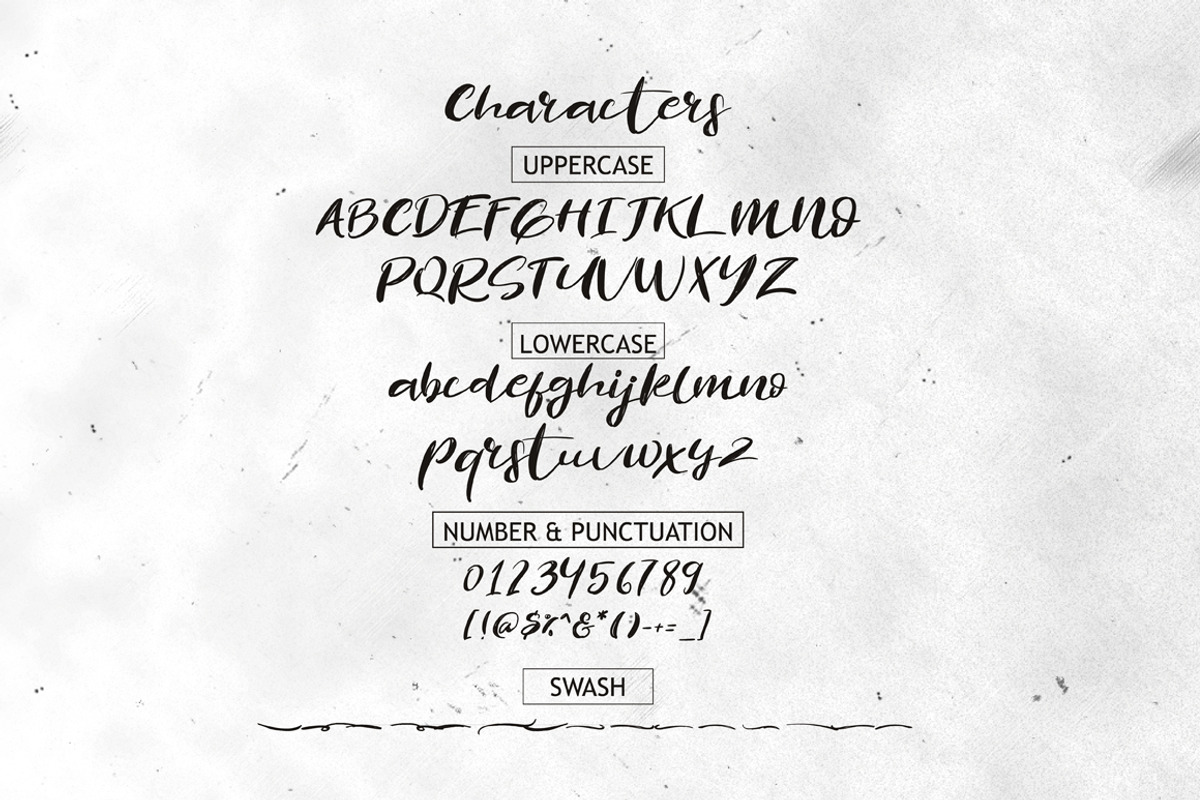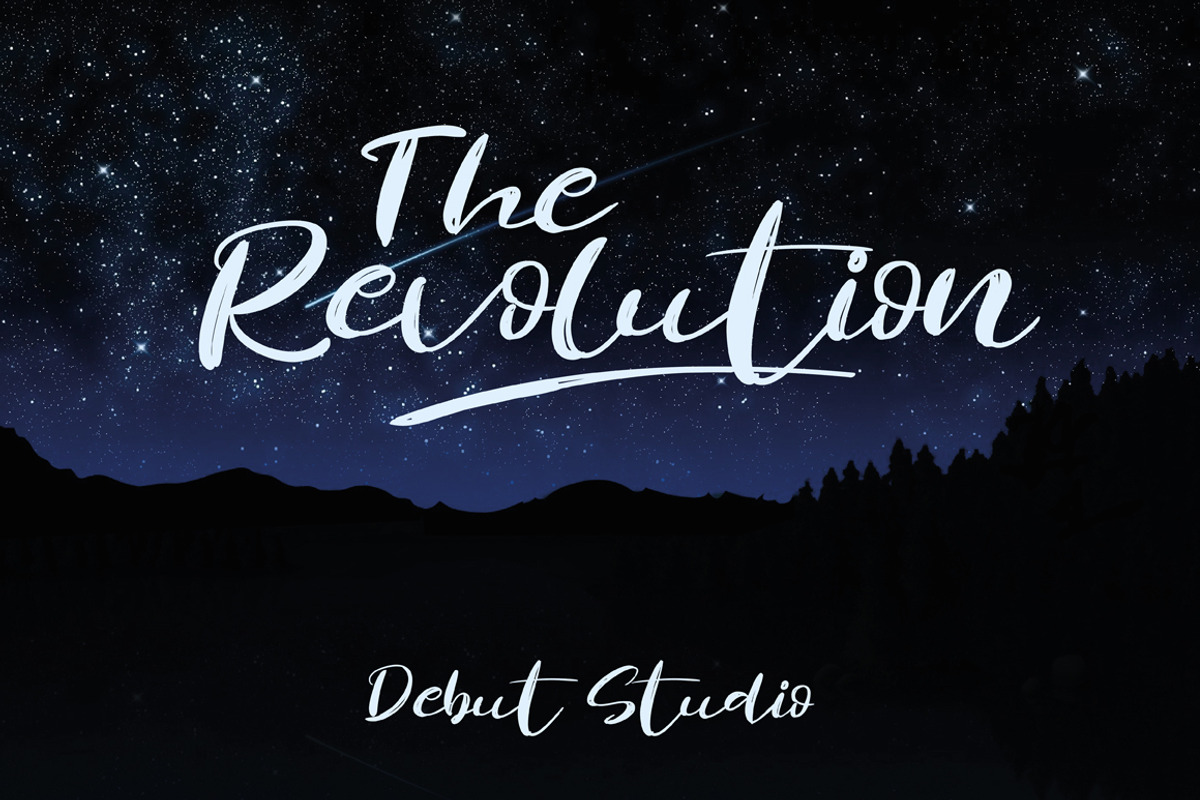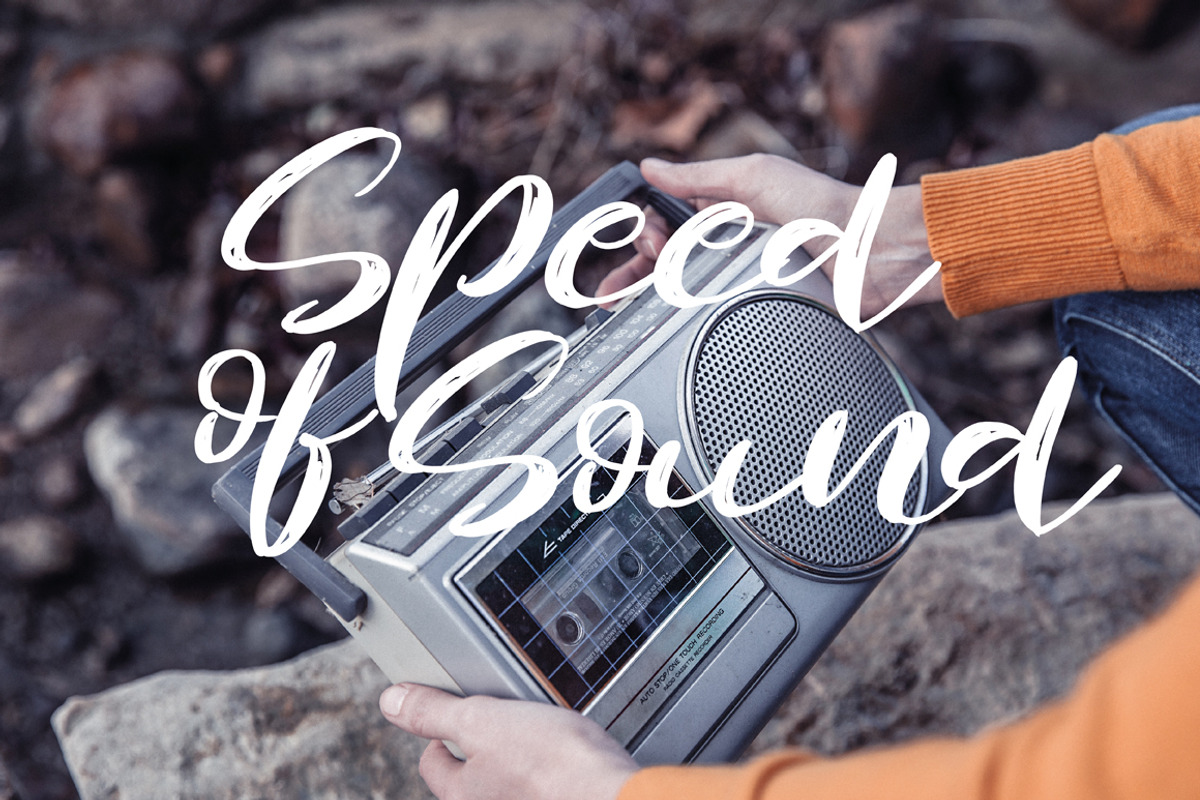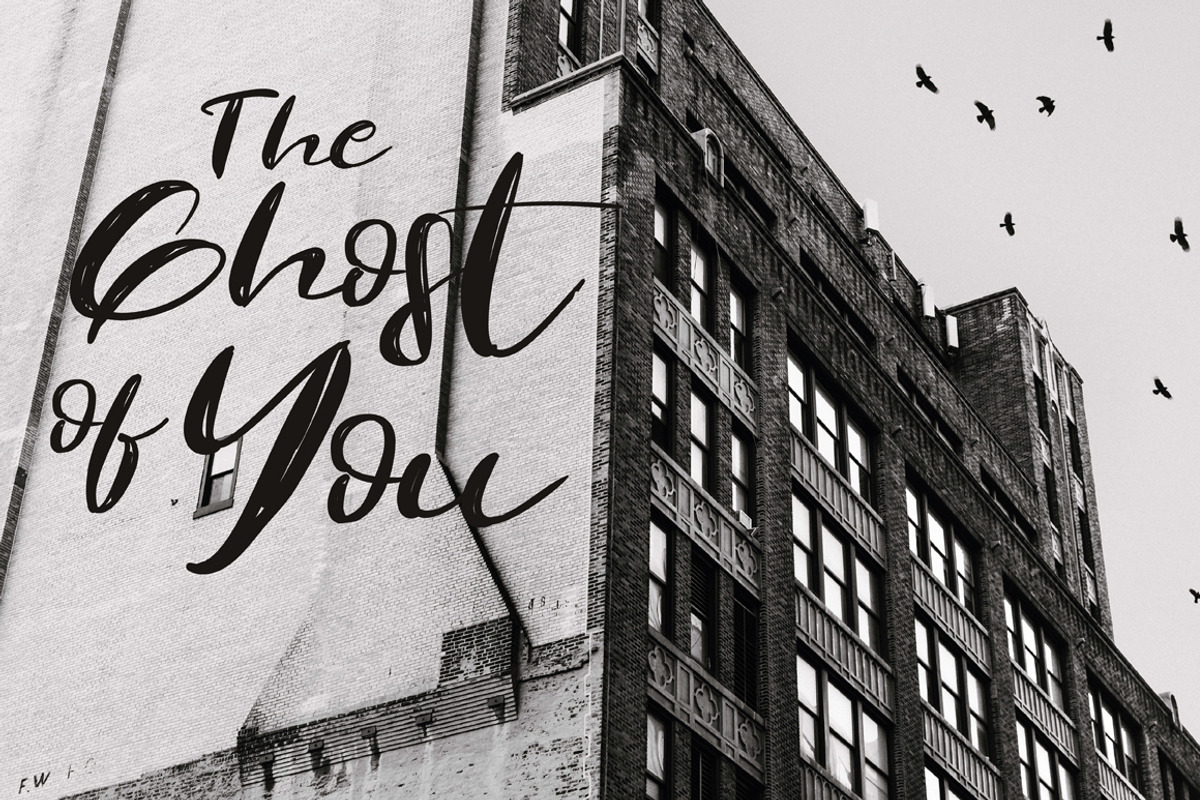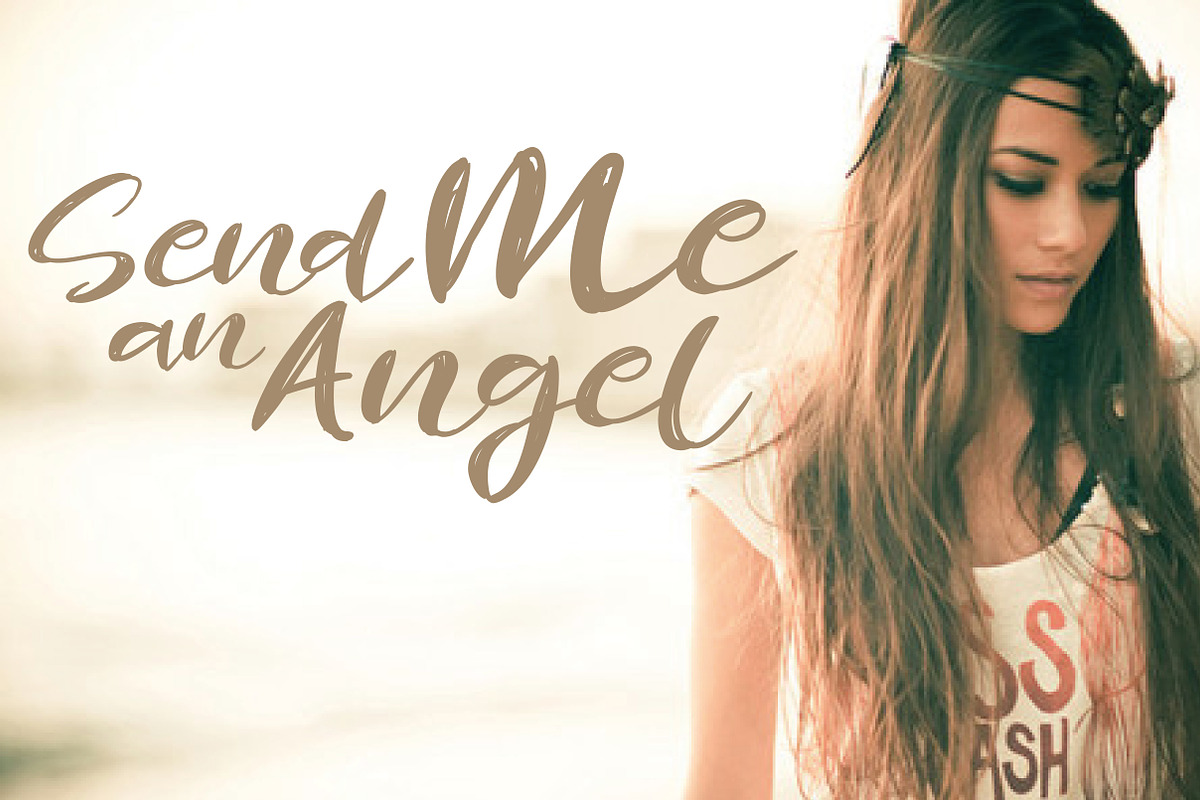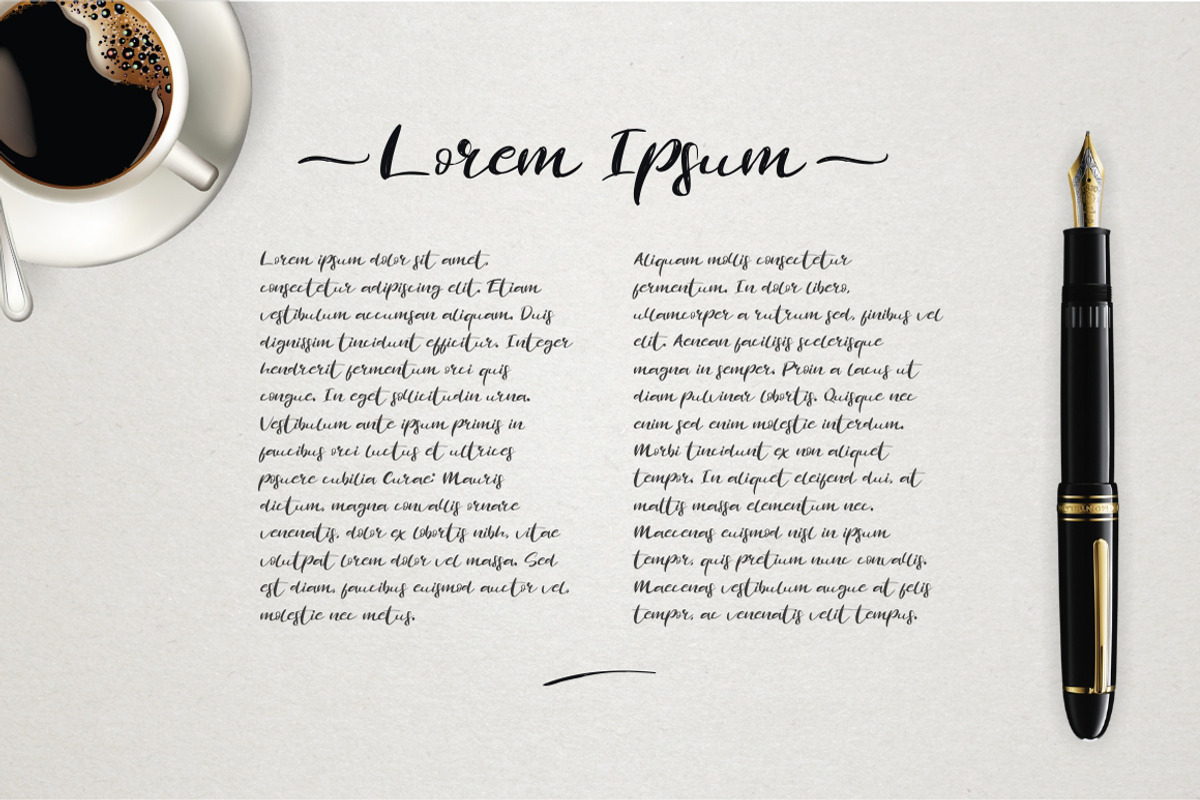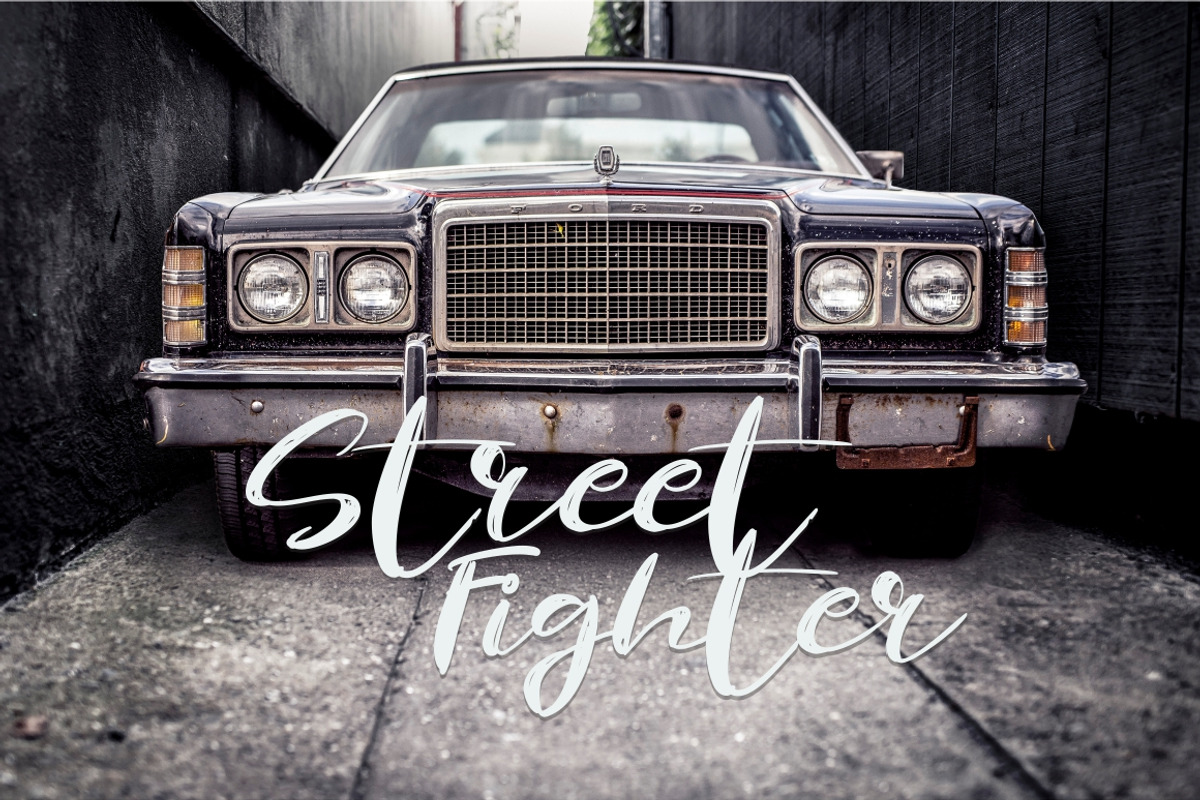
Revolution Brush Font
Revolution Brush Font by Debut Studio is a font selected for branding, posters, packaging, typography.
- This font also suitable for your awesome works like Poster, Logo, T-Shirt Design, Advertisement, Quote Display, Wedding Invitation etc Revol
Why Revolution Brush Font is worth a look
Revolution Brush Font by Debut Studio fits naturally into Branding, posters, packaging, typography.